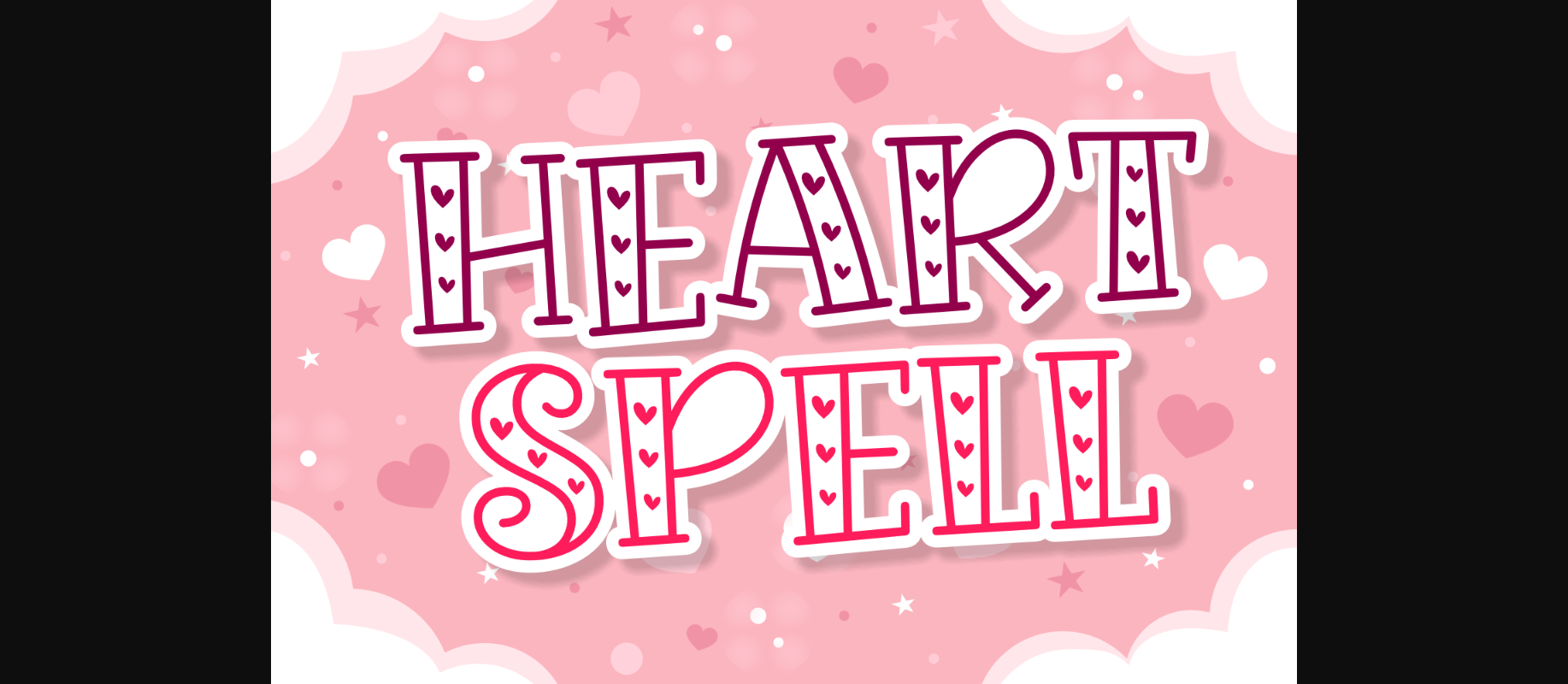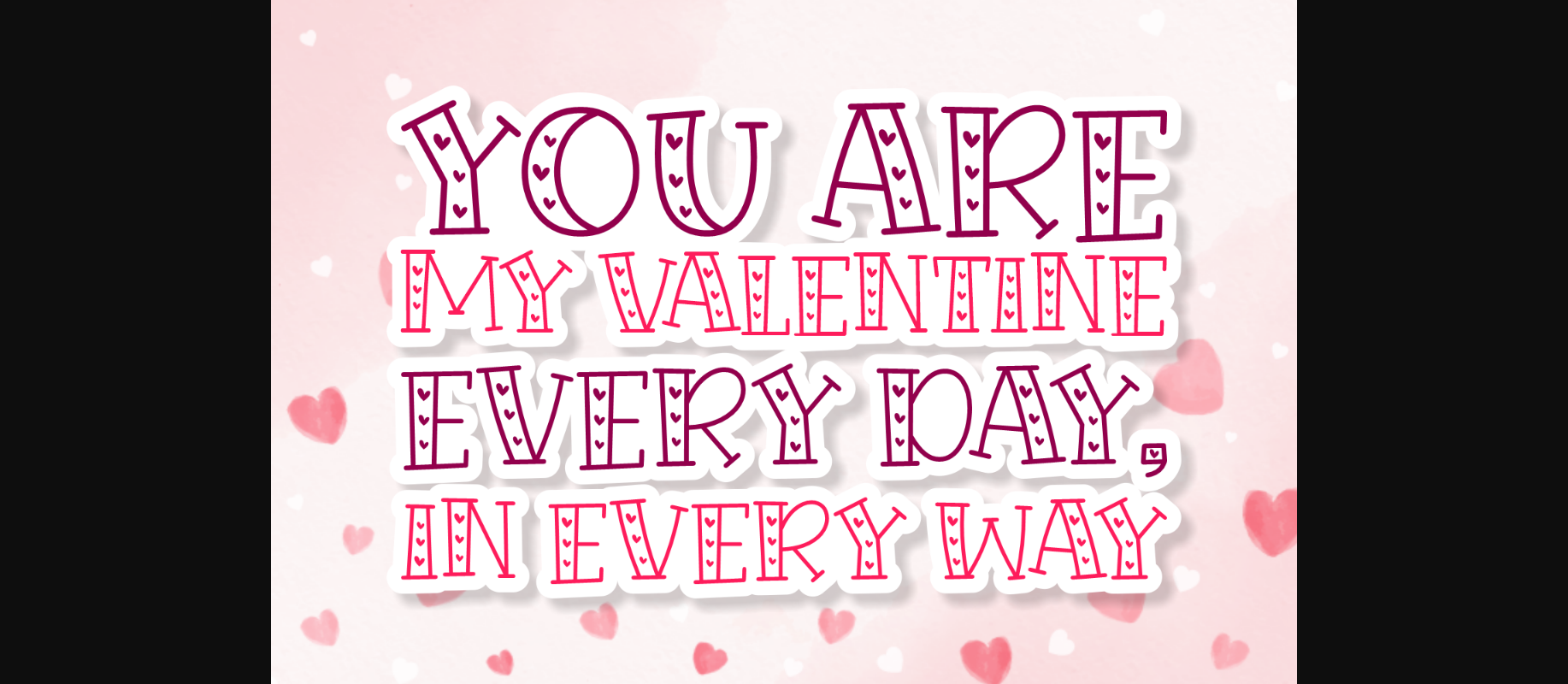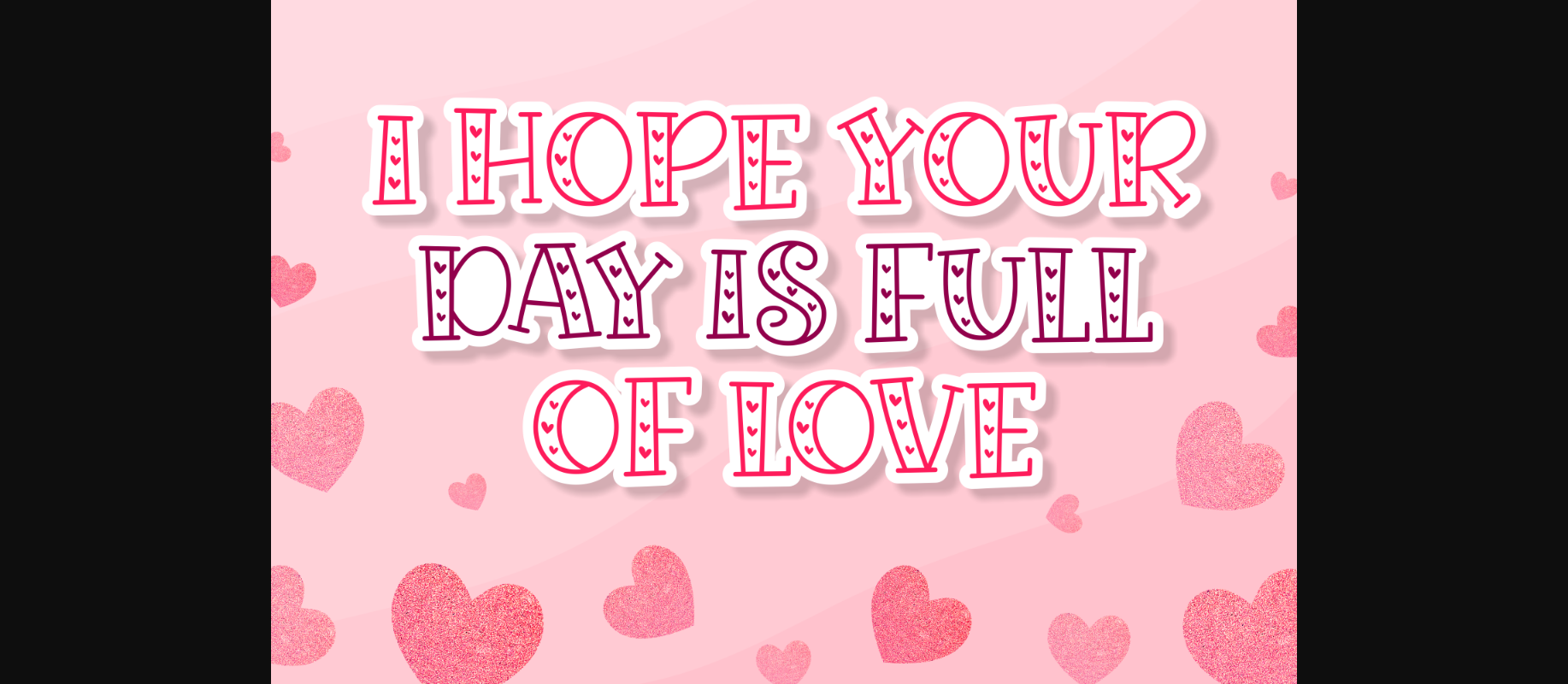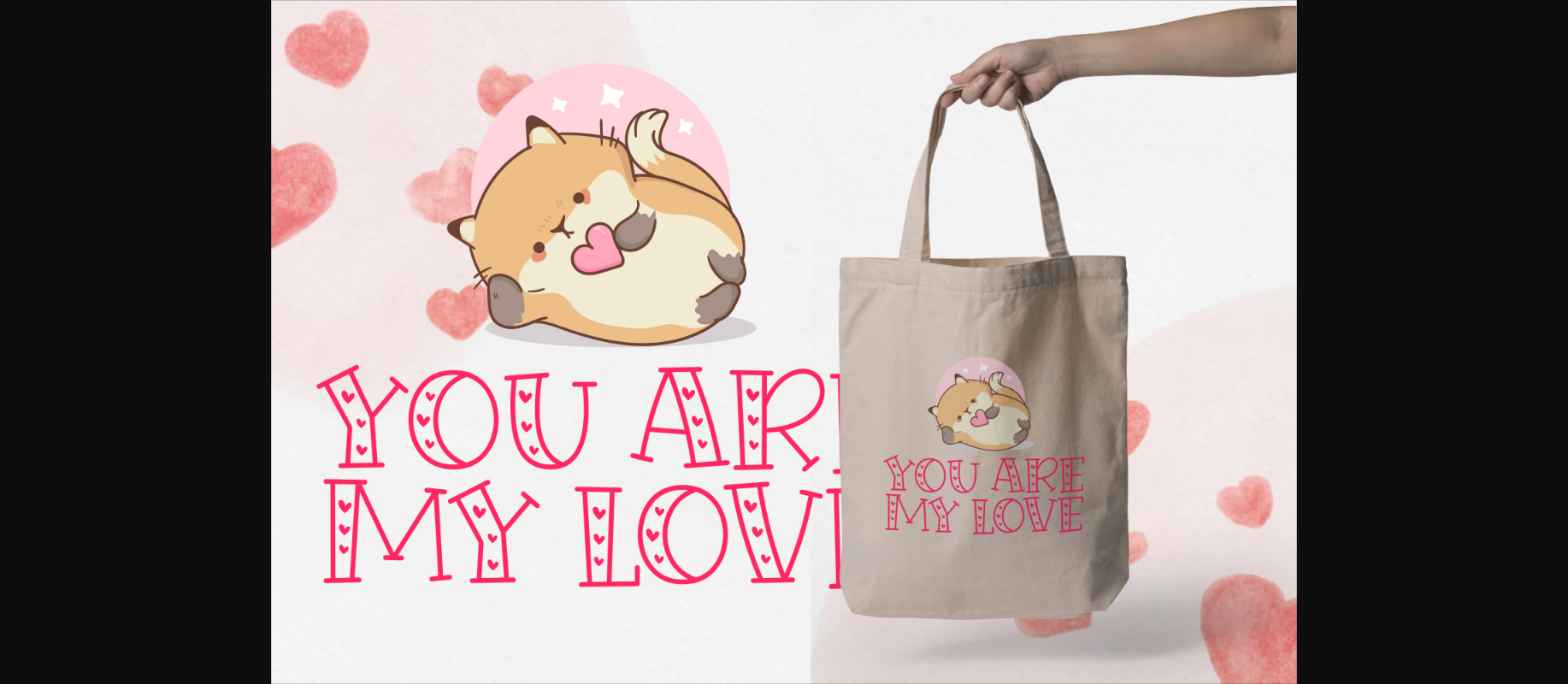
Heart Spell Font
About Heart Spell Font
Heart Spell is a charming and enchanting typeface that captures the essence of romance with its delicate curves and heart-shaped motifs. Perfect for wedding invitations, Valentine’s Day cards, and romantic-themed designs, it infuses a touch of love and whimsy into every project it graces.